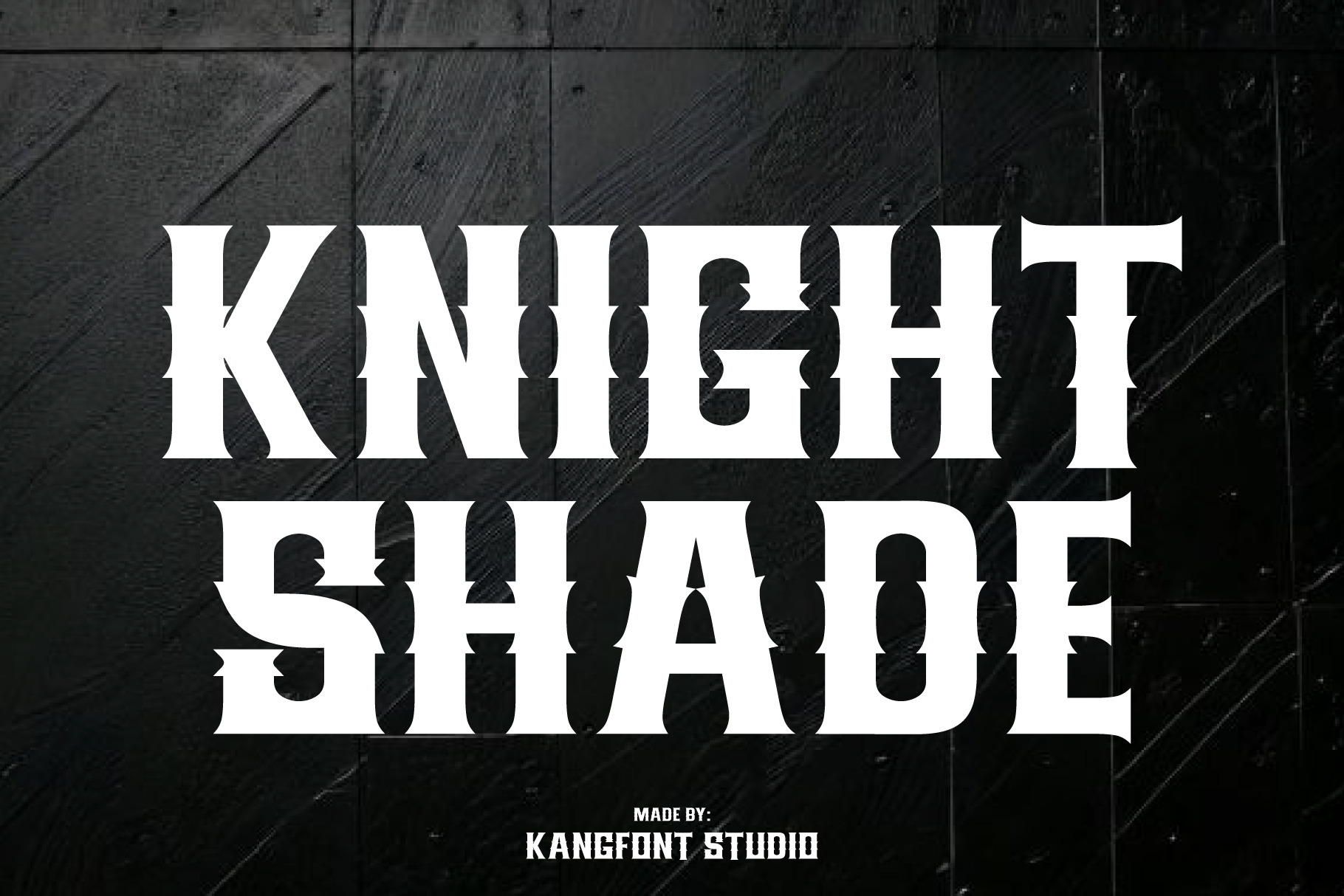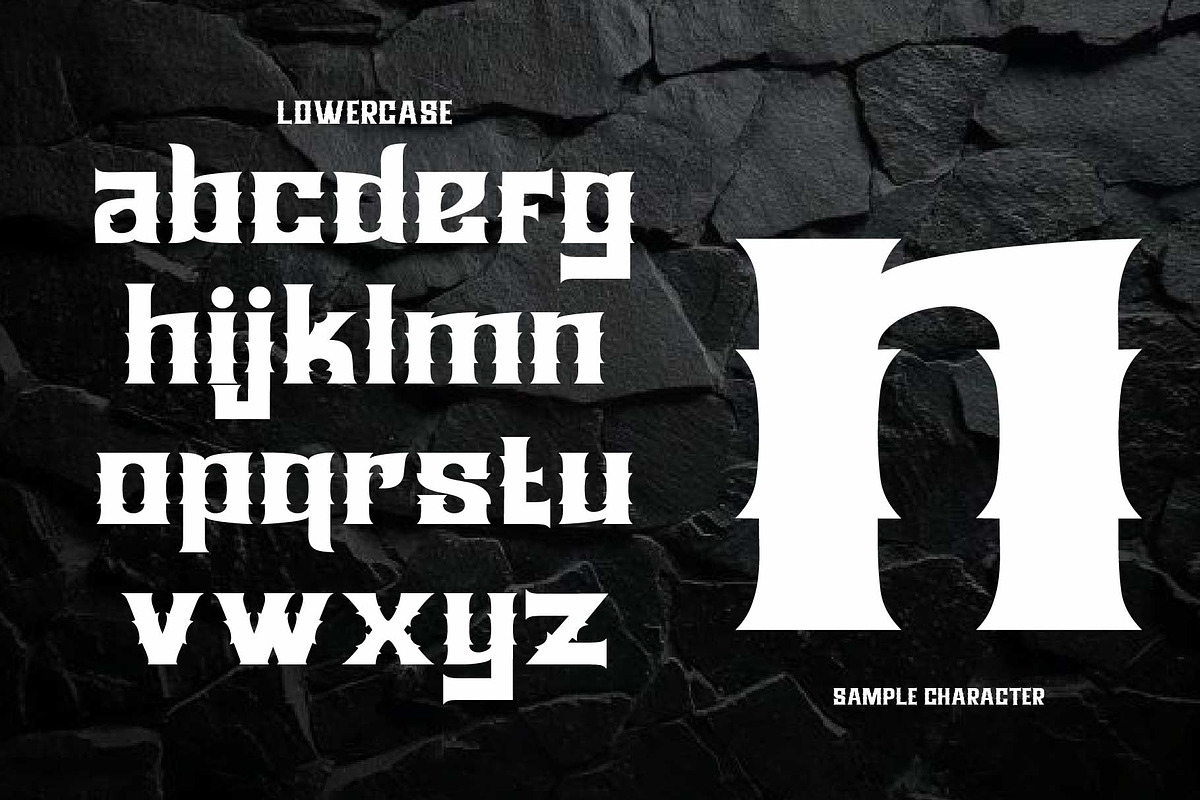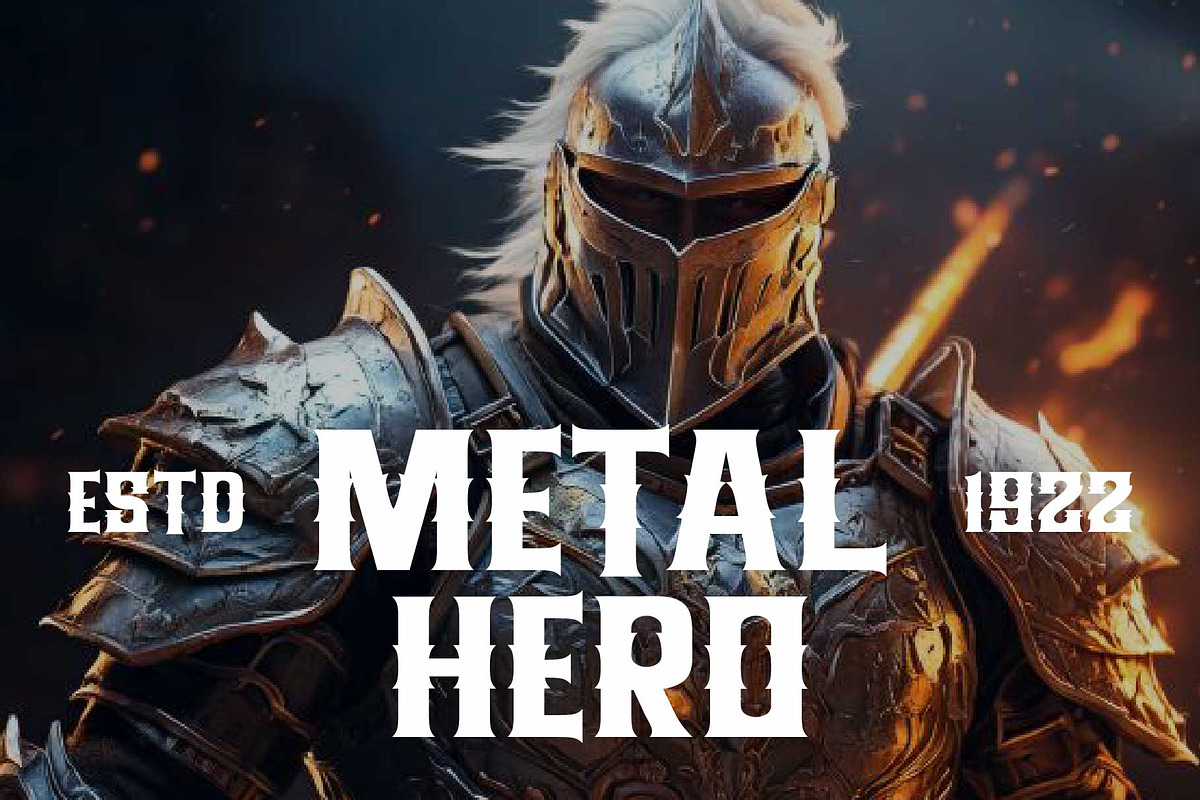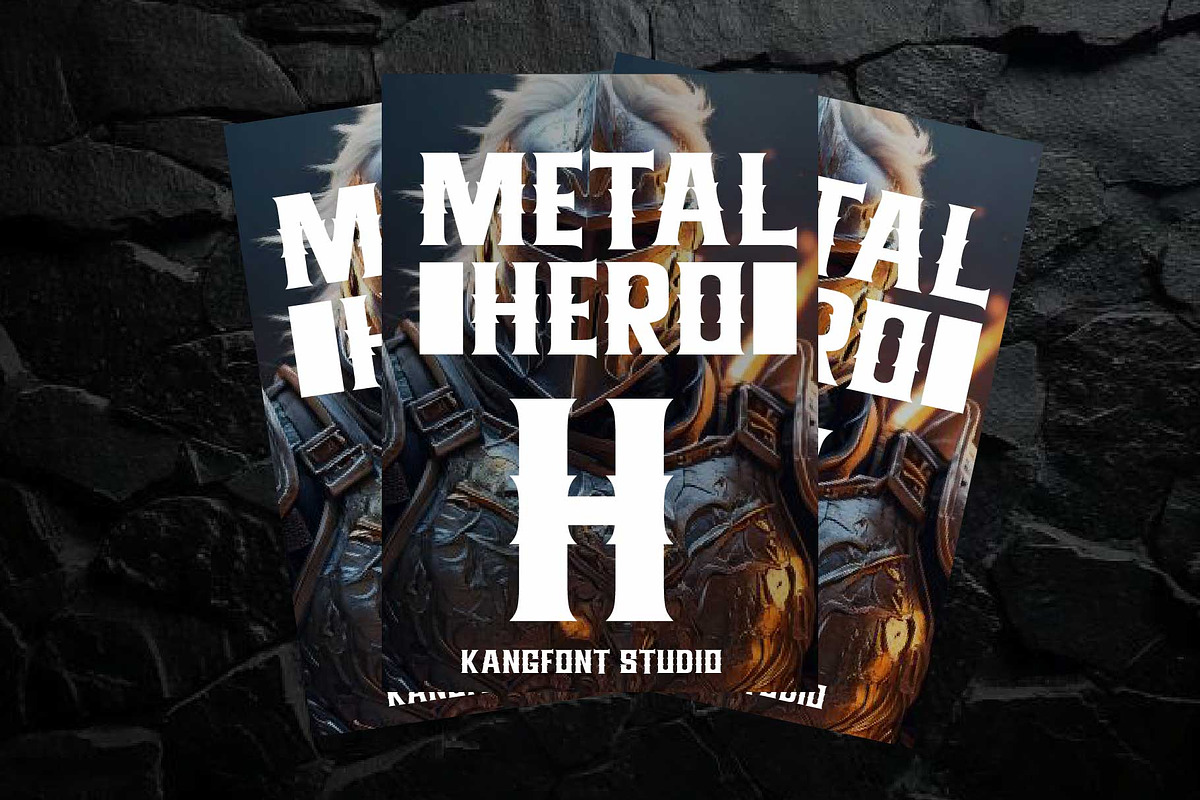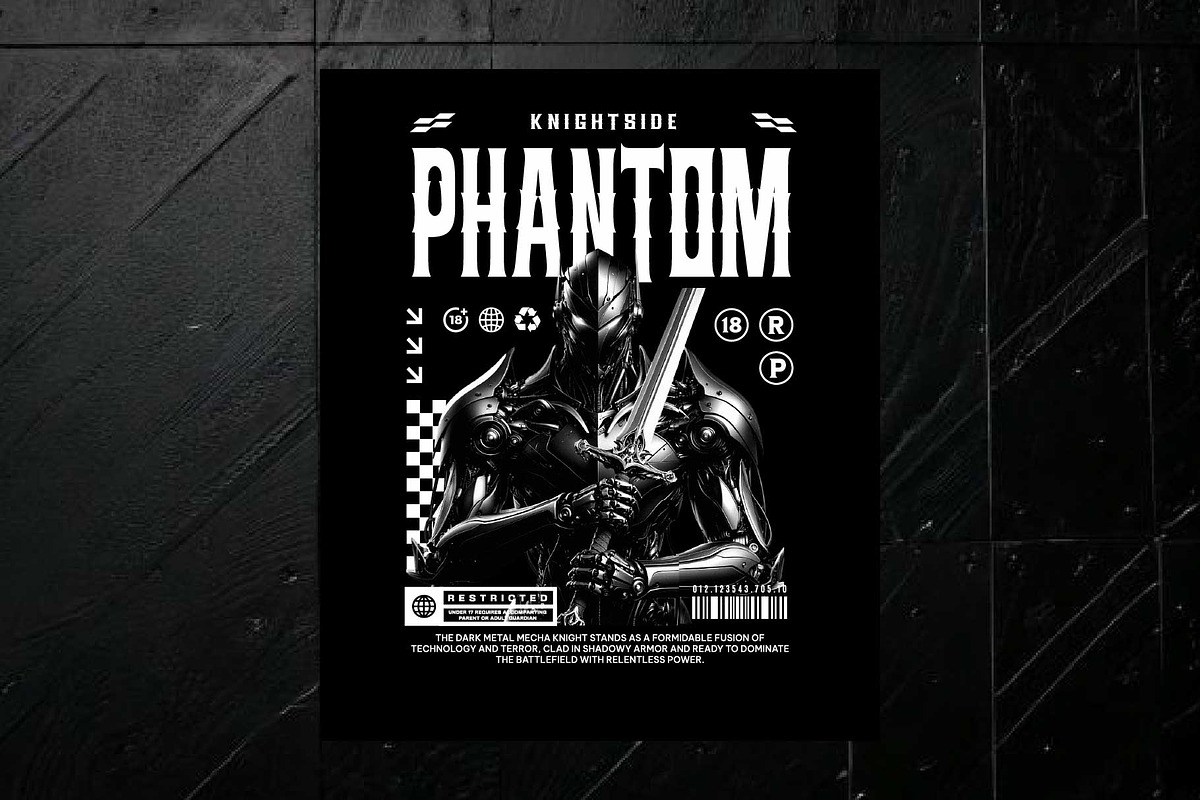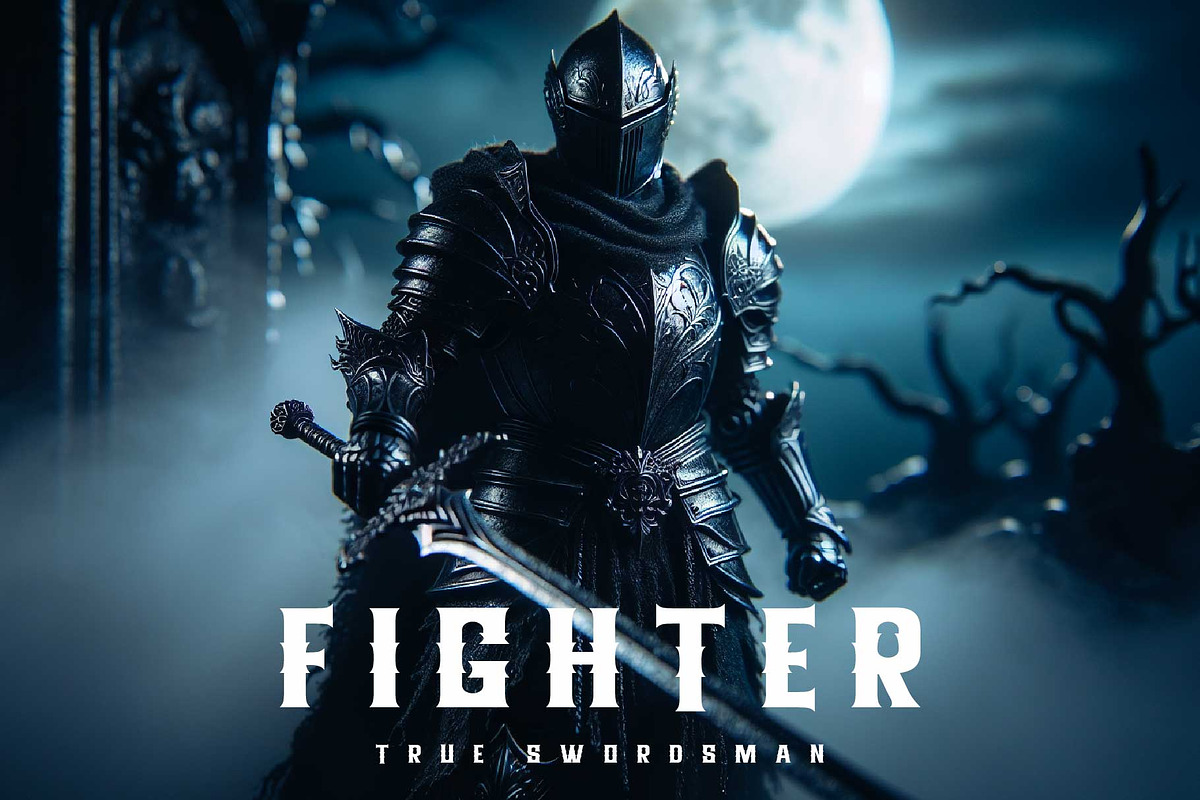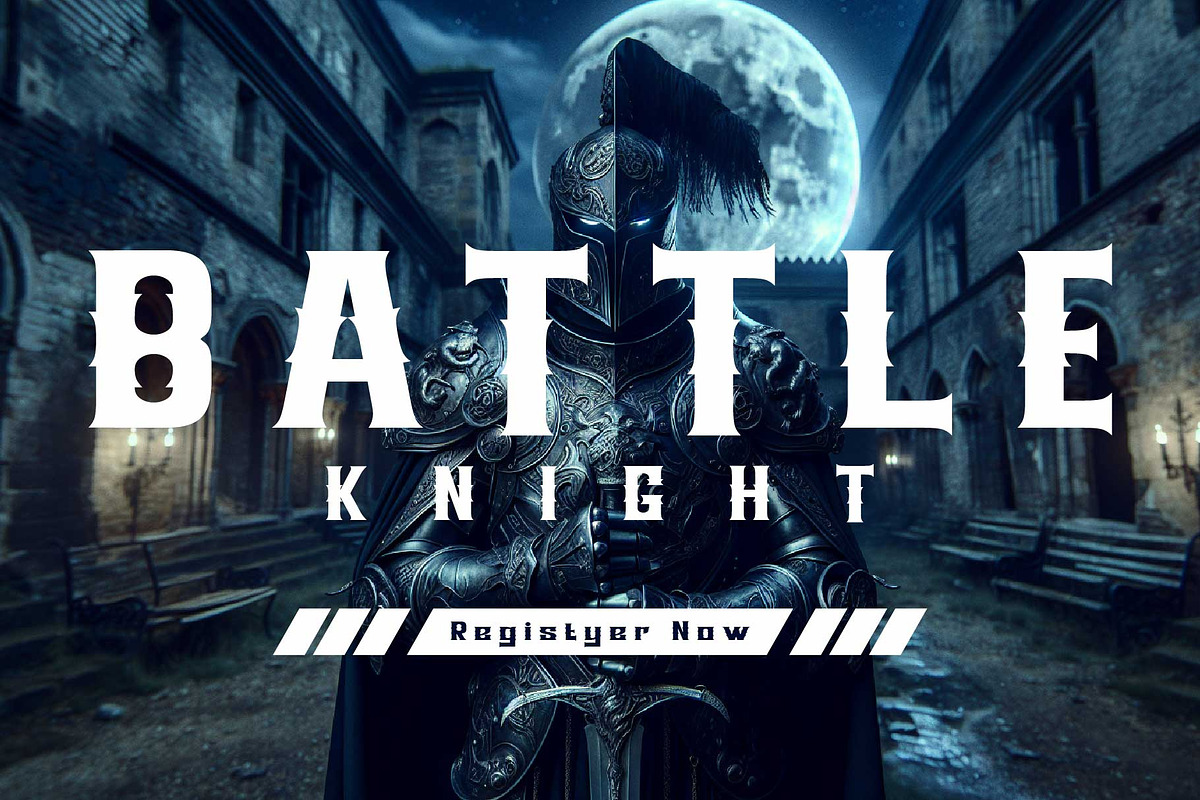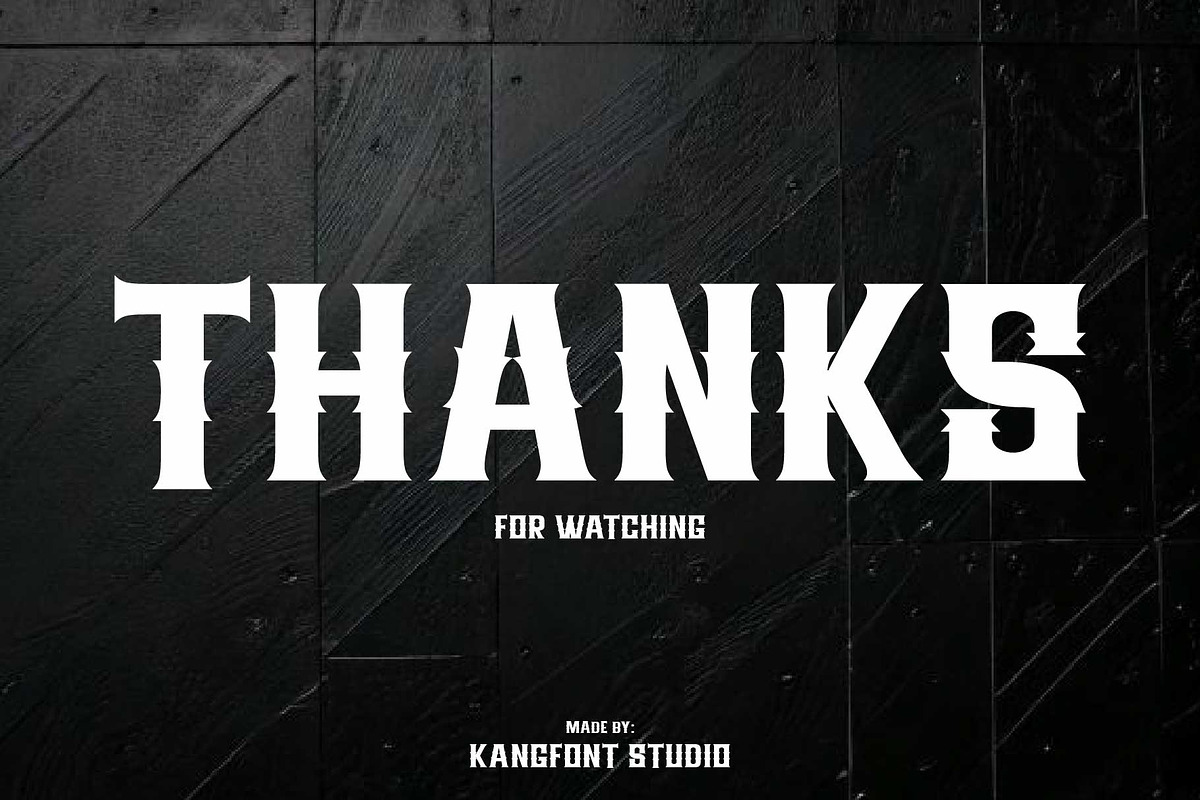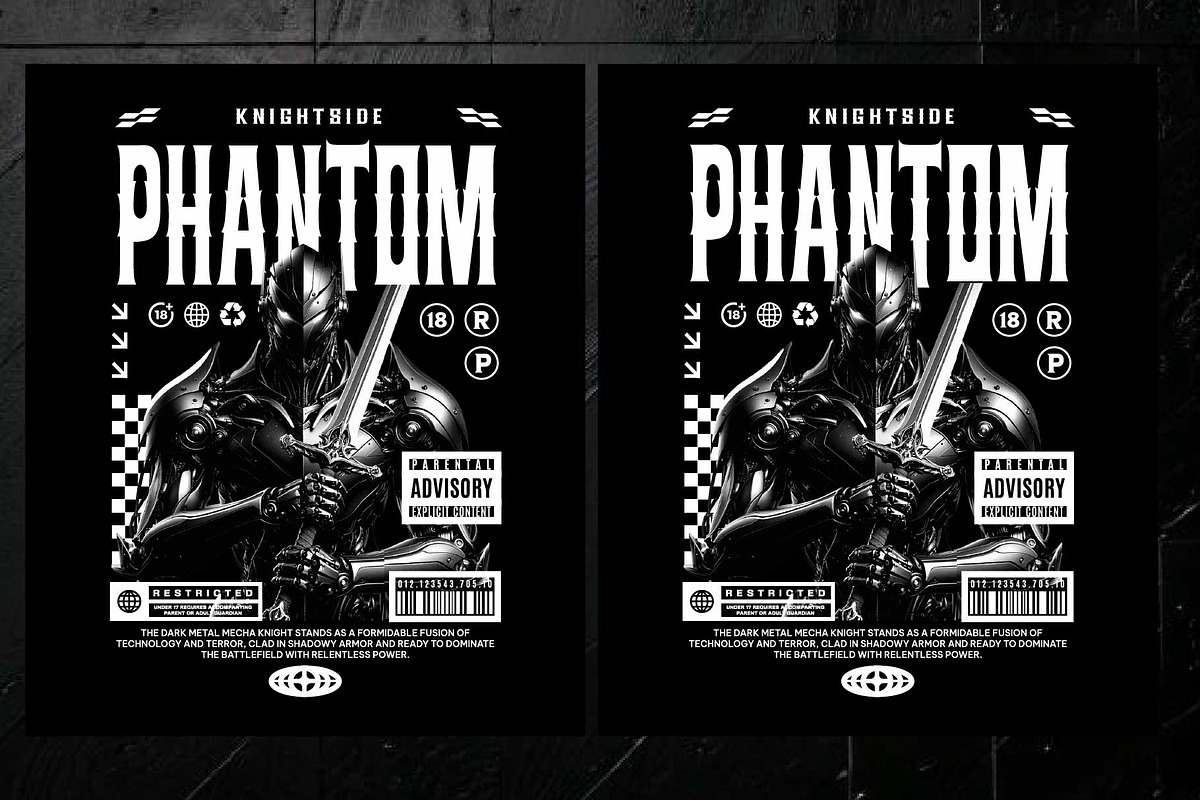
Knightshade – Blackletter Font
The “Knight Side” font is a bold and striking typeface with a classic and masculine style. Its sharp and sturdy letterforms convey strength and bravery, making it ideal for medieval-themed designs, sports, masculine branding, or other creative projects. Featuring distinctive decorative elements in each character, this font exudes elegance while maintaining a robust appearance. it is perfect for grabbing attention on logos, posters, headlines, or promotional materials that require a strong and eye-catching impression.
- Ligature & Stylistic alternate